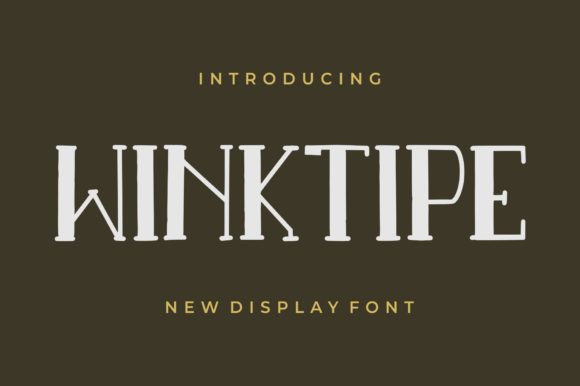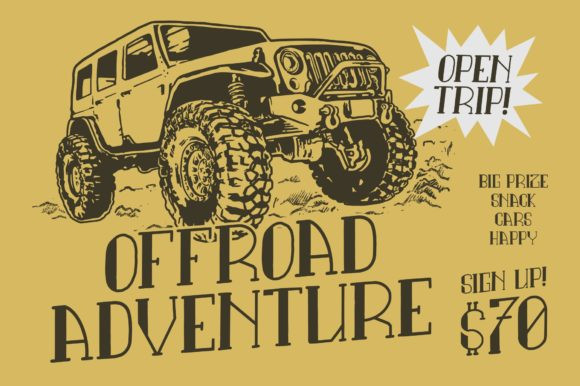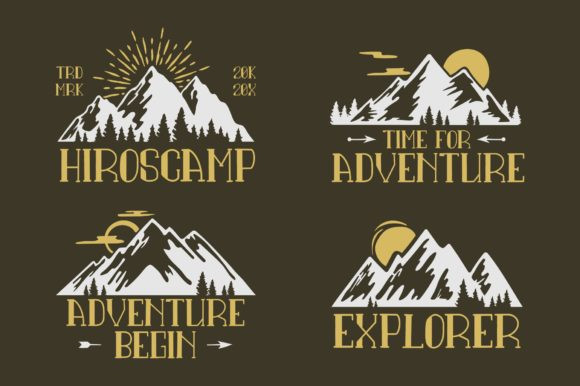
Winktipe Font
Winktipe celebrates abstract shapes in all their eclectic beauty. This playfully conceptual display font will look truly outstanding in a wide range of contexts.